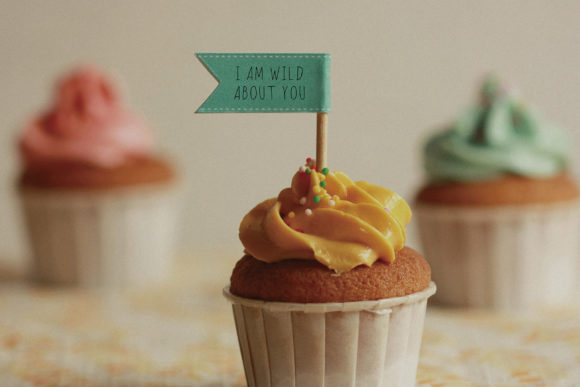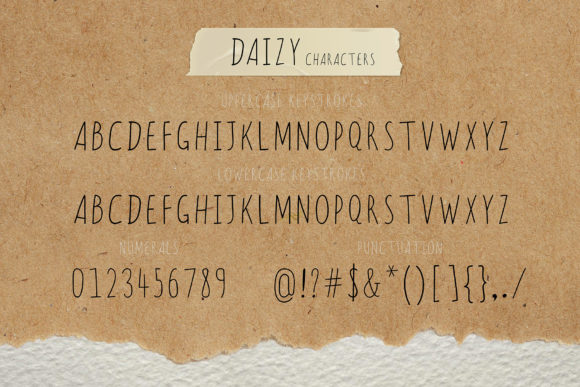
Daizy Font
db-ku.com - Script & Handwritten -- Daizy is a cute, clean and slim handwritten font. It is suitable for any projects such as: logos, branding projects, label, photography, watermark, special events, and all your other lovely projects that need a beautiful taste.